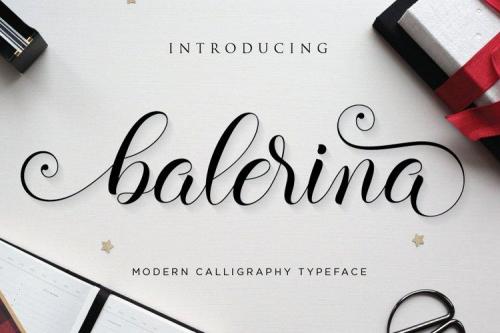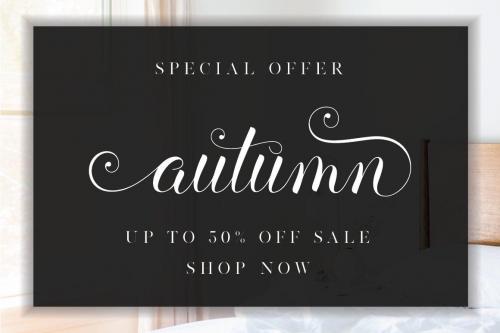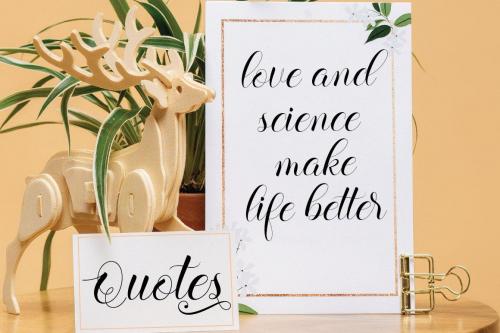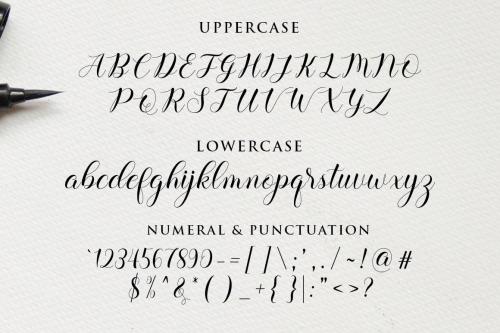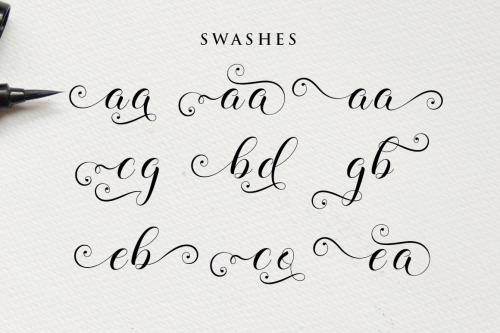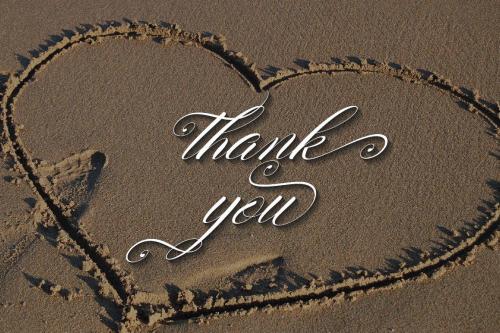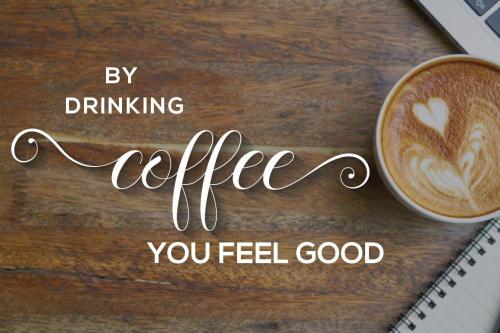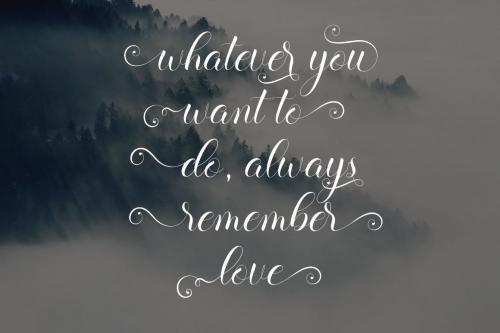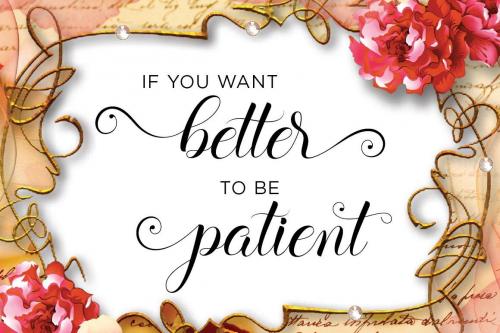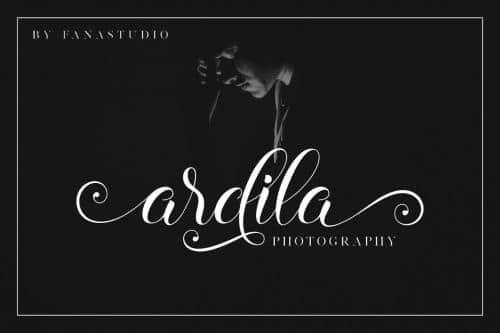
Introducing Balerina Script, a stylish Font Style. This beautiful script font offers your personal touch to your latest art project with elegant, classy and modern look.
The balerina Script offers gorgeous typographic perfect for many different projects such as logos & branding, invitations, stationery, wedding designs, social media posts, advertisements, product packaging, product designs, labels, photography, watermarks, special events or anything that needs handwriting taste. What’s Included:
- Designer: fanastudio